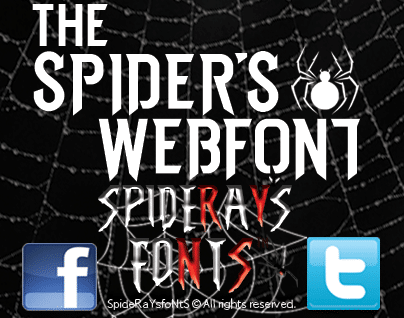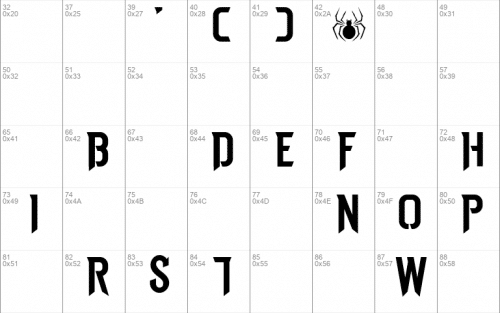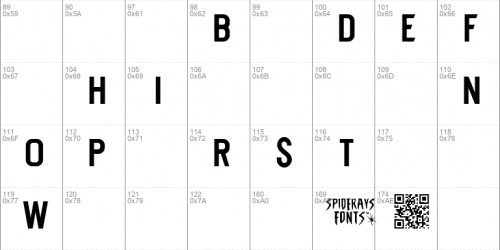
The Spiders Webfont Font
I created this The Spiders Webfont Font based on the on the new Thriller action movie about a Computer scientist who becomes the target of a criminal organization who call themselves the “Spider Society” The font has similar narrow stems pointed angled glyphs, stem cut-outs and rounded edges.